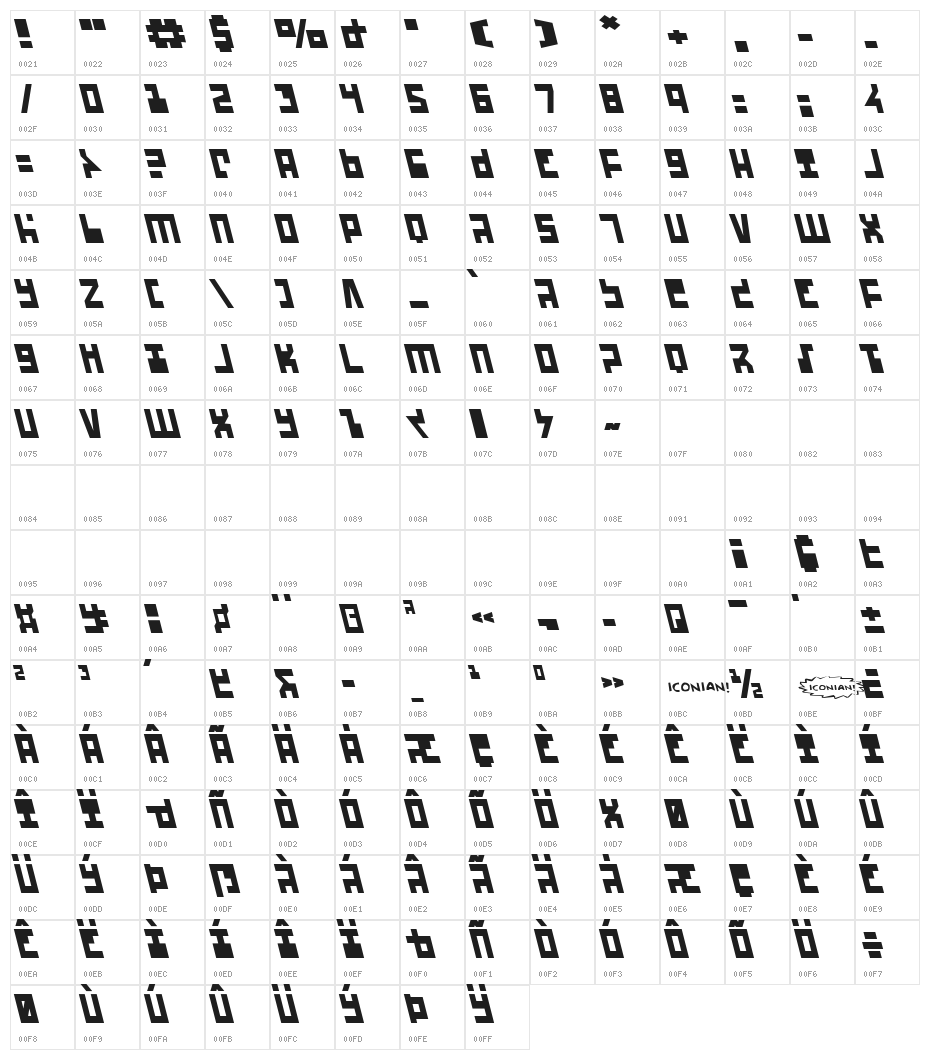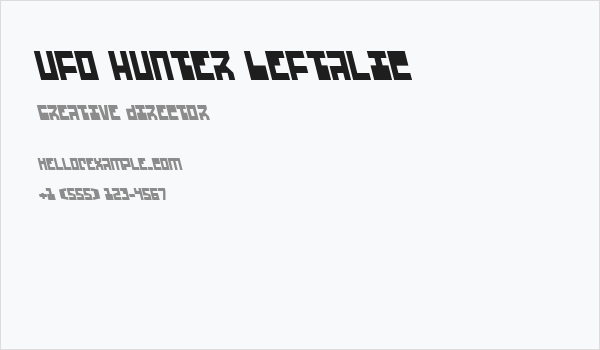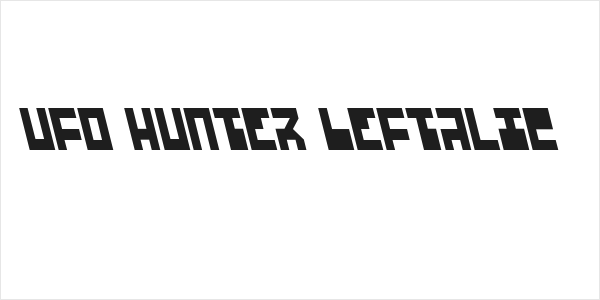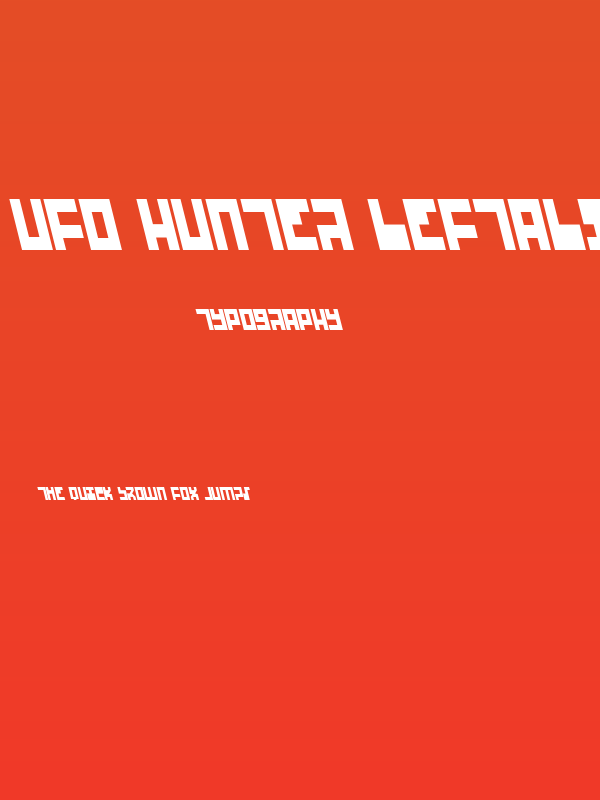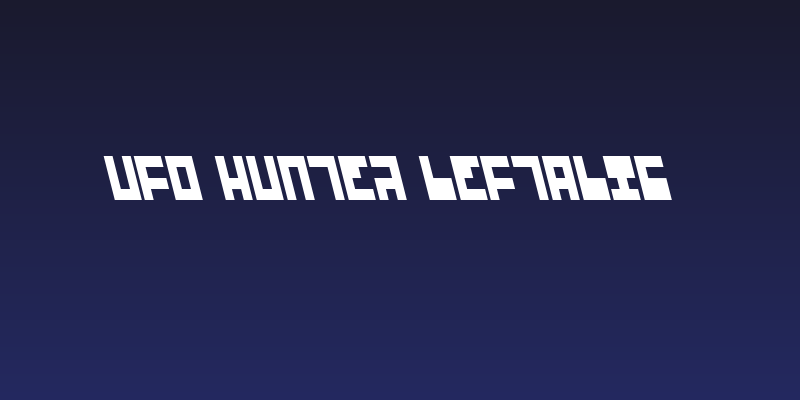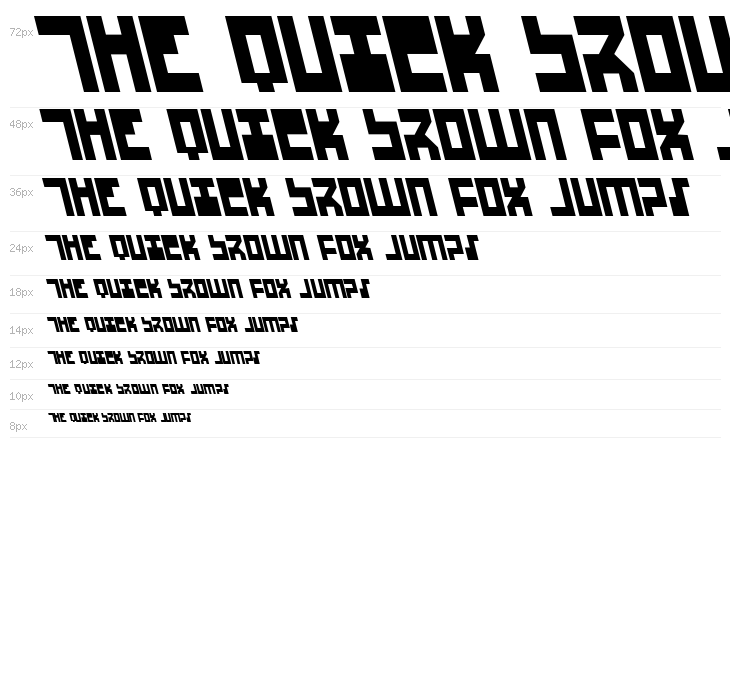
UFO Hunter Leftalic Font
UFO Hunter Leftalic Description
This font features a bold, geometric design with a futuristic and angular aesthetic. The characters are constructed with sharp edges and a blocky structure, giving it a distinctive and modern appearance. The uppercase and lowercase letters maintain a consistent style, with the lowercase slightly smaller but equally bold. Numbers and special characters follow the same design principles, ensuring uniformity across all glyphs. The font's unique style makes it stand out, ideal for projects that require a strong visual impact.
| Overall Style | Futuristic, Modern |
| Proposed Projects | Ideal for sci-fi themed projects, video game titles, posters, and branding that requires a modern and bold statement. |